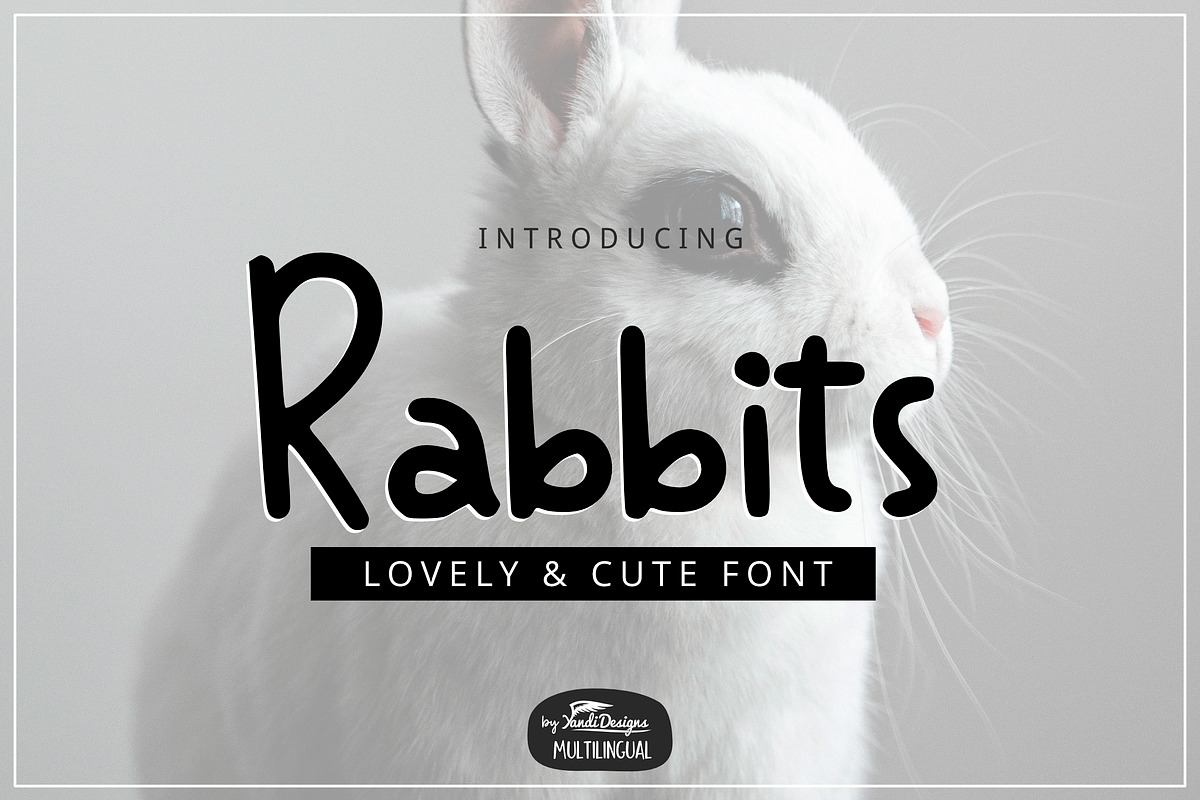
Rabbits Font Free Download is a cute and whimsical typeface that brings a playful, storybook feel to any design. With soft curves, rounded shapes, and a touch of innocence, this font is perfect for children's books, Easter-themed projects, baby shower invitations, greeting cards, and anything that needs a sweet, cheerful vibe. Its charming appearance makes it ideal for both digital and print use.
Whether you're designing for a nursery brand, a seasonal event, or just want to add a gentle, happy touch to your work, Rabbits Font delivers the personality and softness you're looking for. Feel free to explore it with a free download for testing purposes, but remember that a license is required for all commercial use.
Hop into creativity with Rabbits Font Free Download and let your projects shine with playful energy. It’s a delightful addition to any designer’s collection, especially when you’re aiming for warmth, joy, and a bit of bunny-inspired magic.